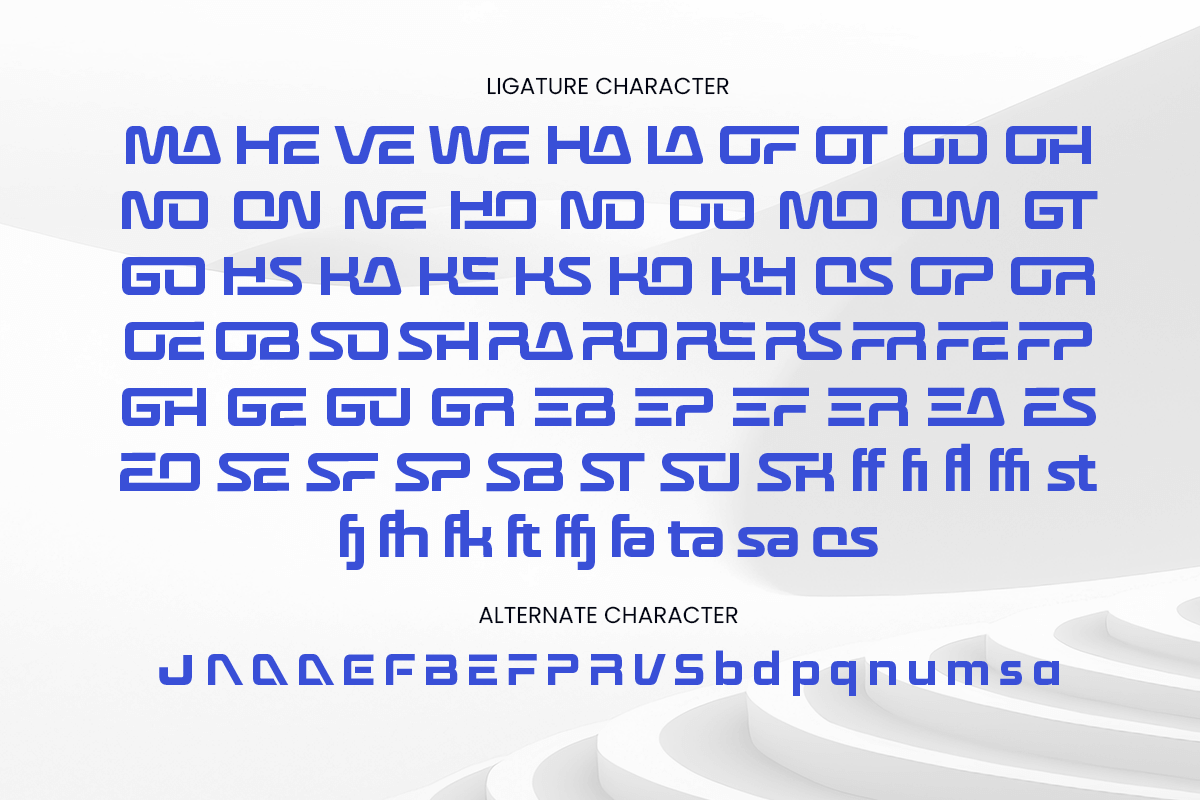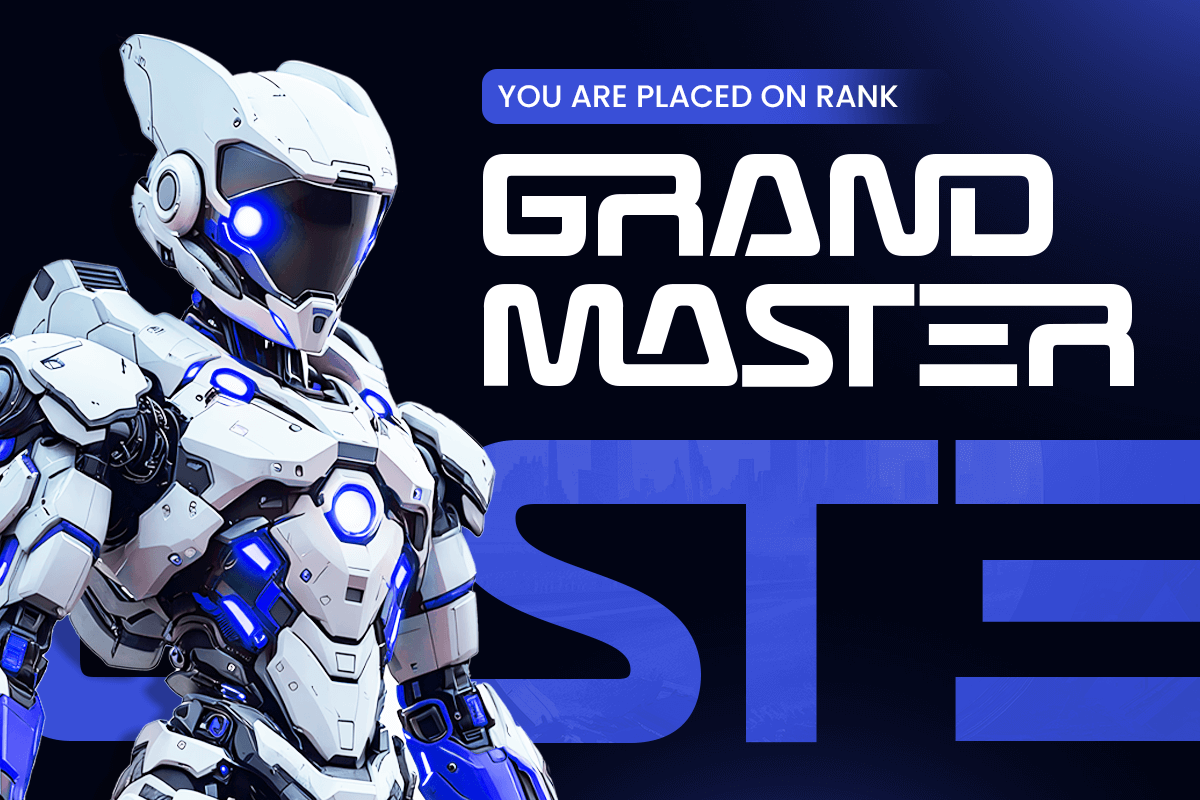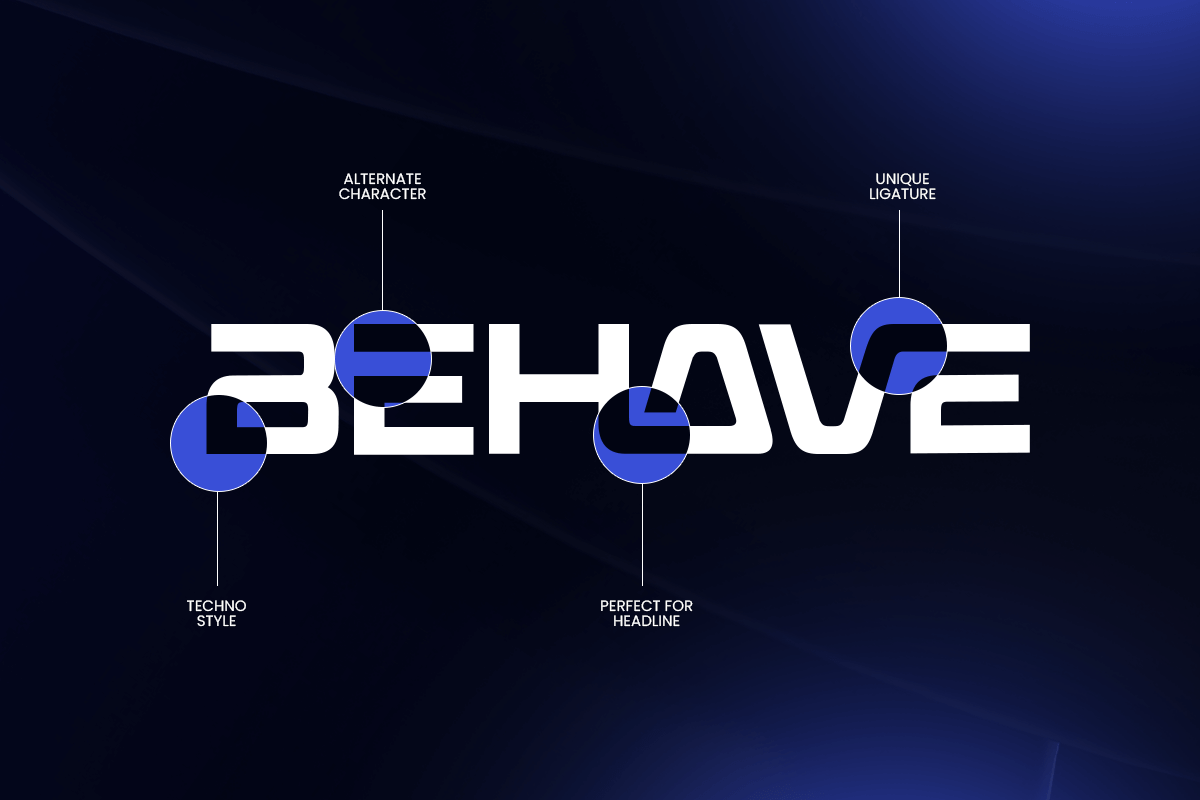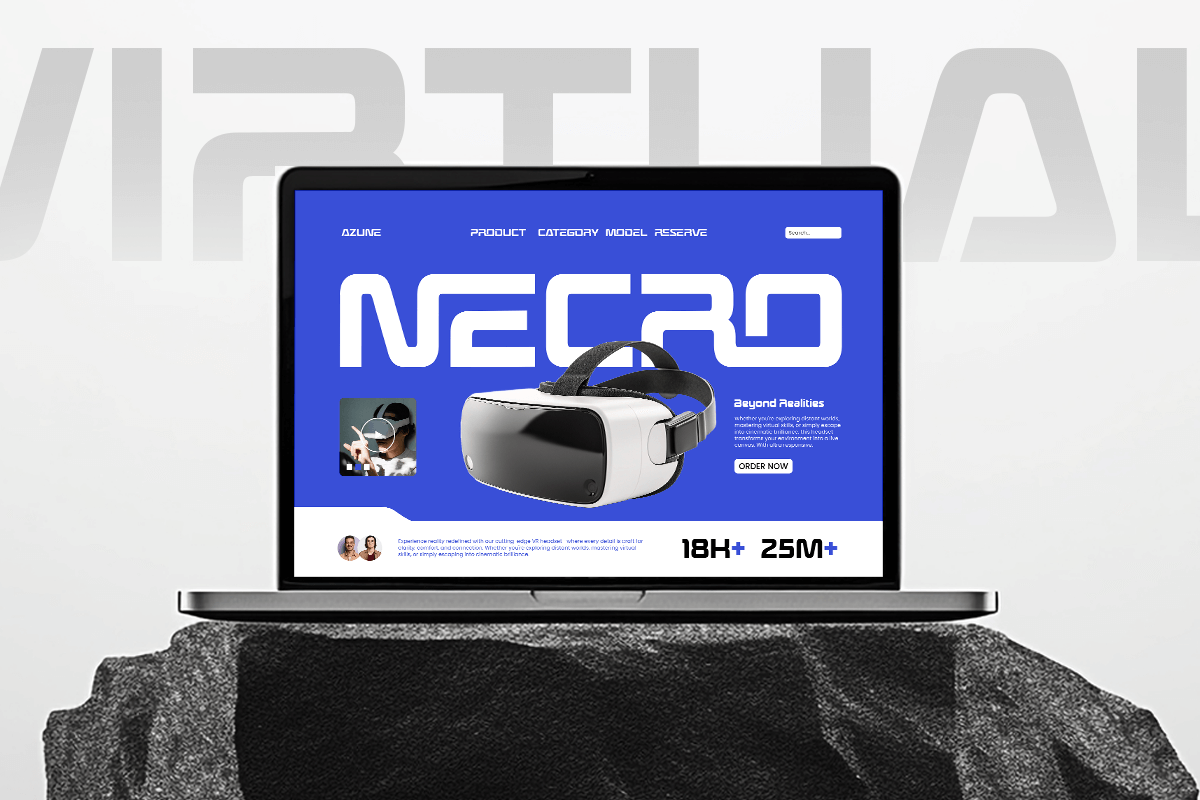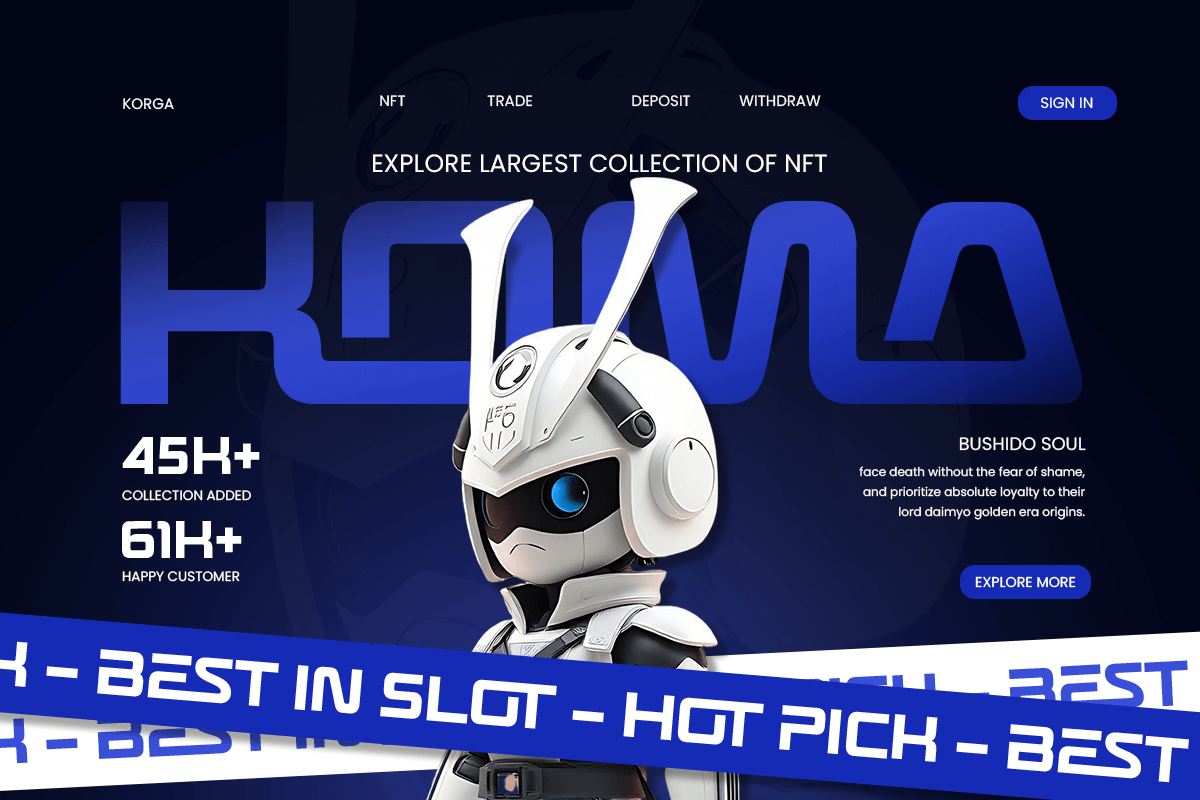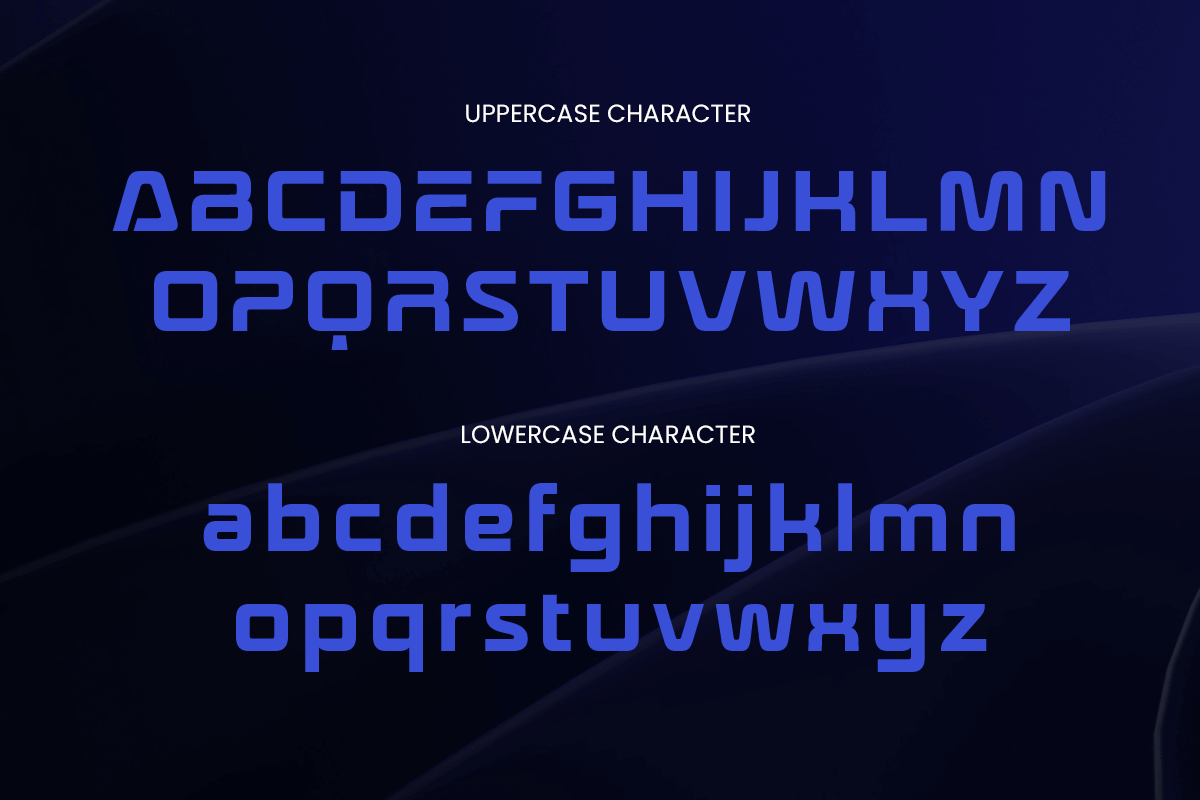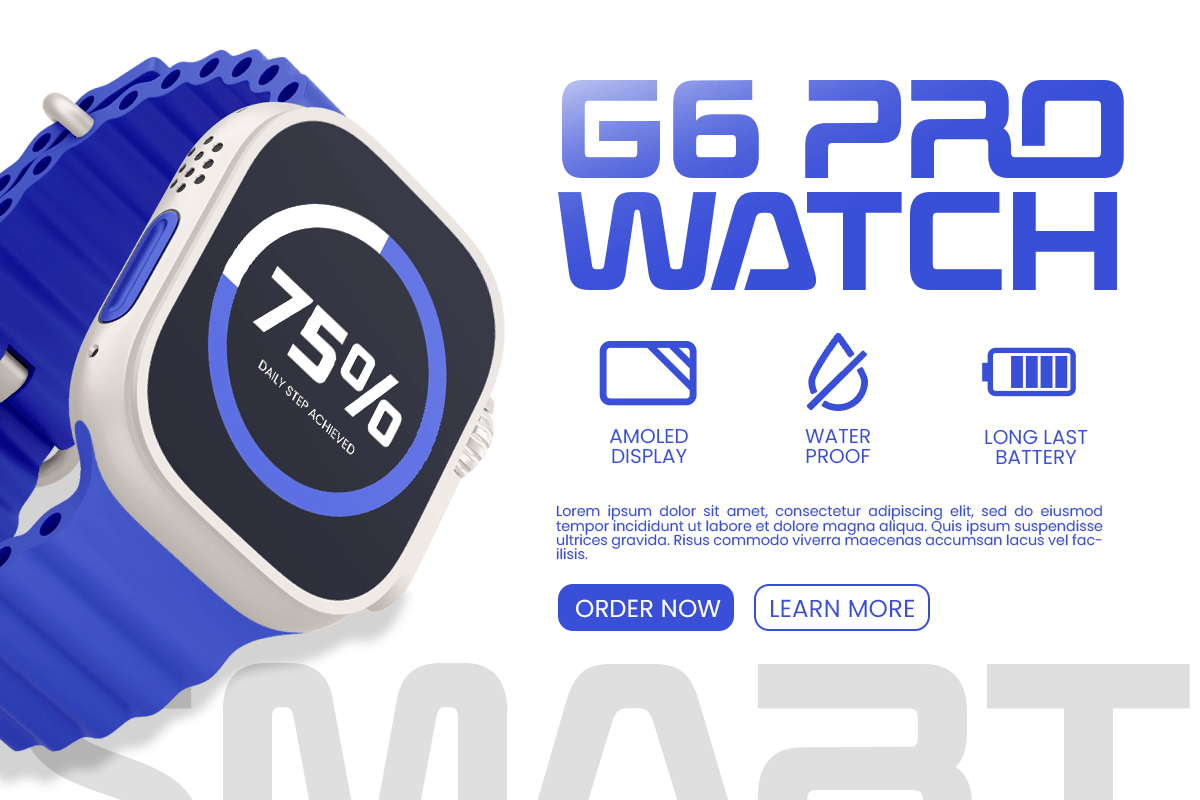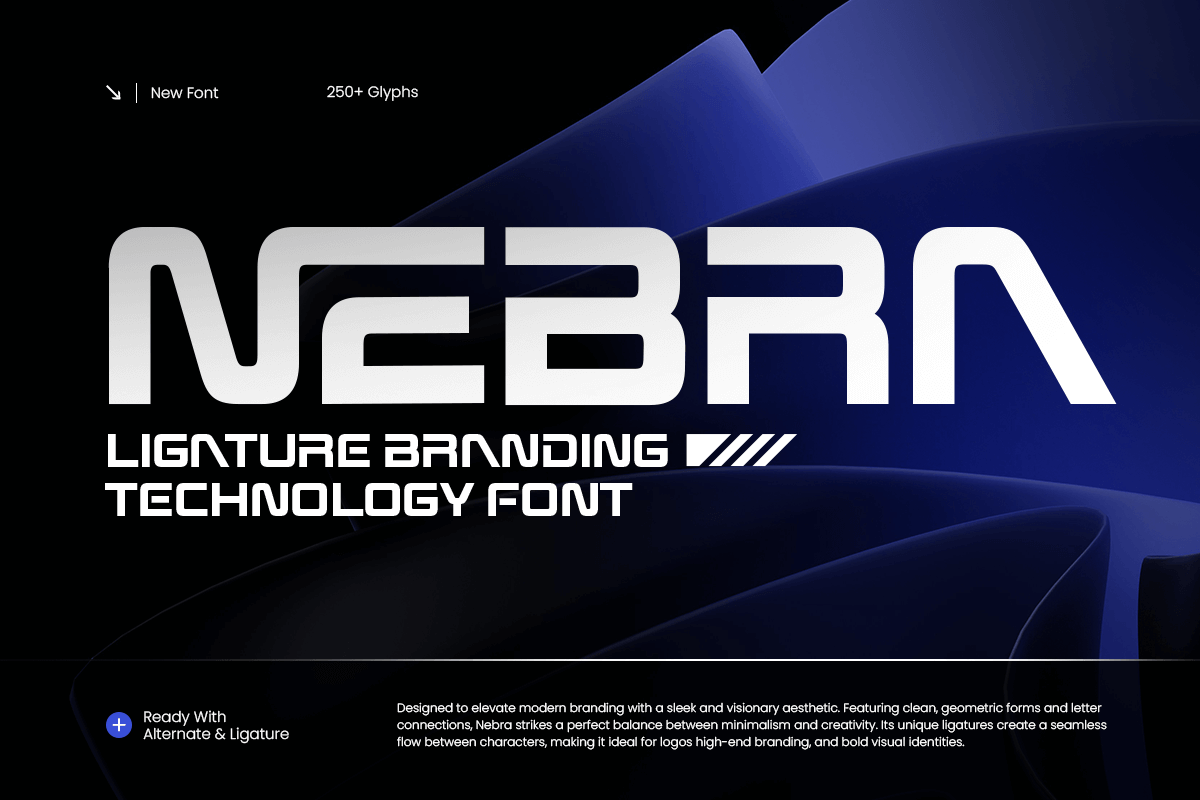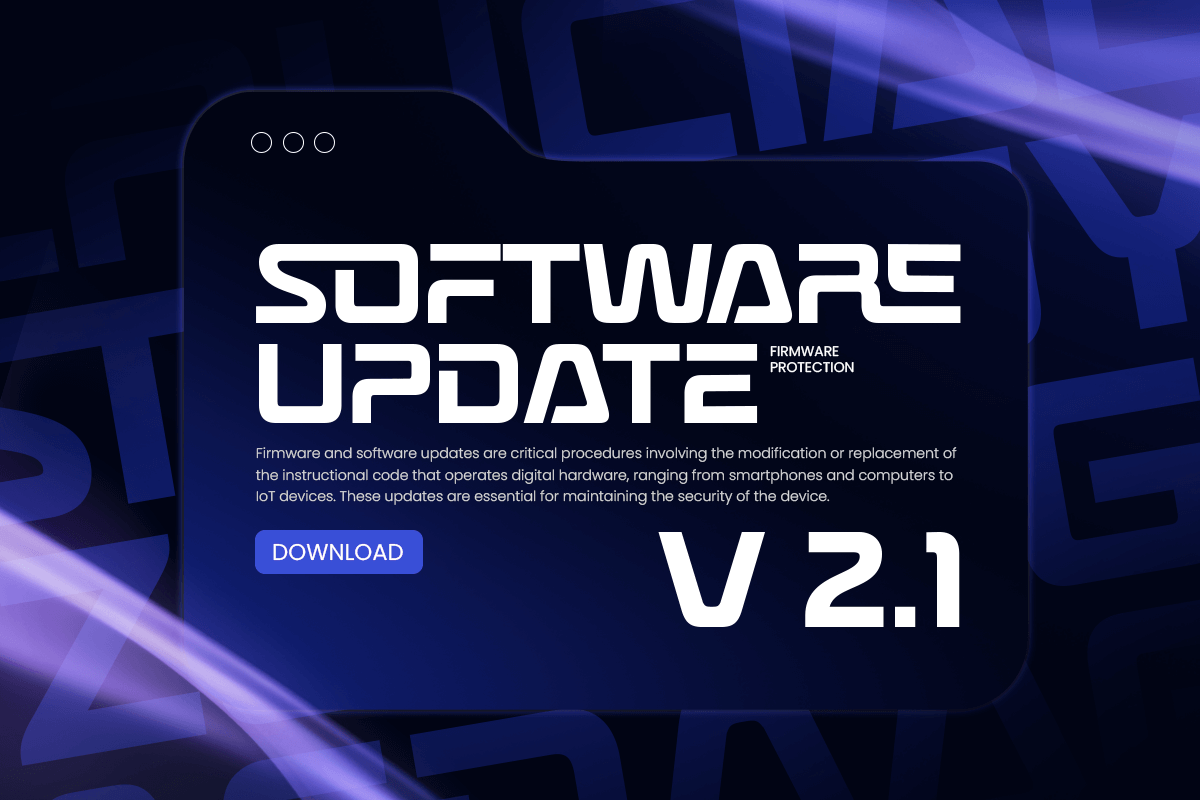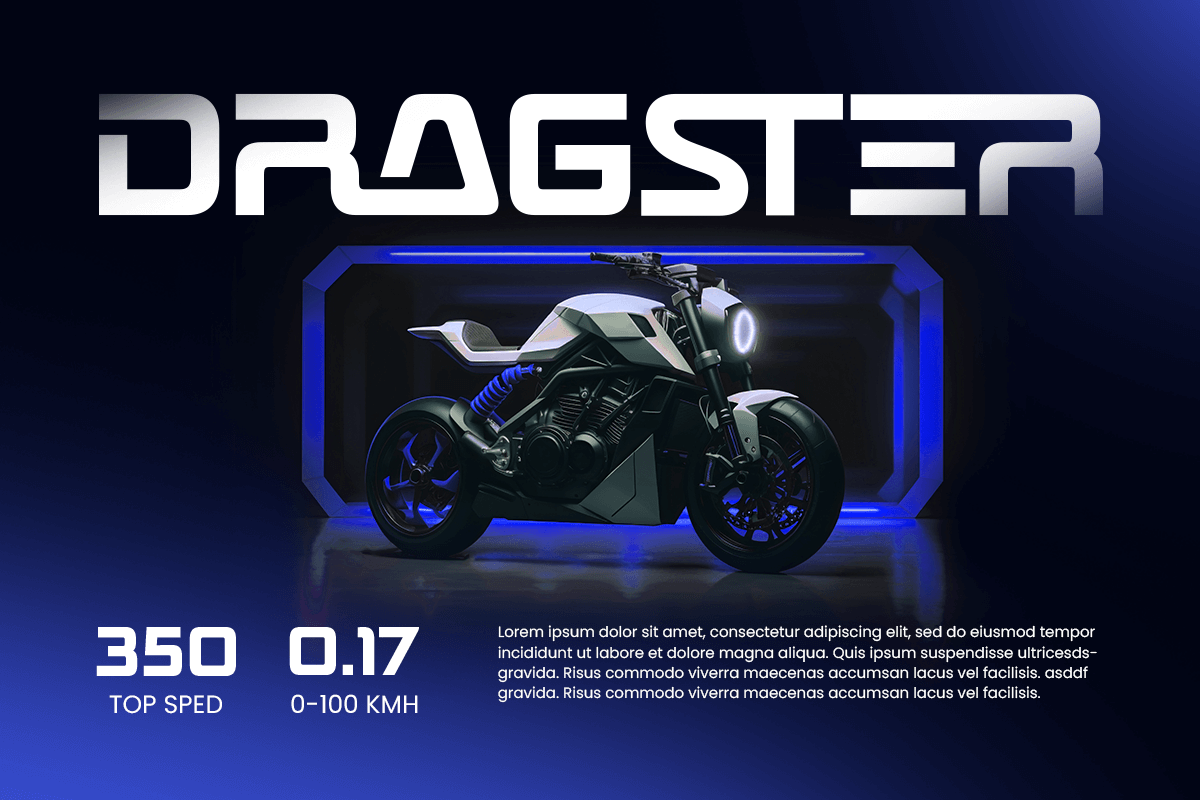
Nebra - Branding Technology Font
Nebra – Ligature Branding Technology Font
Nebra is a modern technology font crafted with clean geometry and stylish ligatures to create a strong, innovative branding presence. Designed for tech-driven identities, Nebra delivers a futuristic yet professional look ideal for logos, startups, digital products, UI/UX design, and modern corporate branding.
With its smooth ligature connections and balanced letterforms, Nebra enhances readability while adding a distinctive technological character. This font is perfect for software companies, AI projects, fintech brands, creative studios, and any modern business seeking a sleek and forward-thinking visual identity.
Nebra – Ligature Branding Technology Font Features:
* Modern technology style with clean custom ligatures
* Ideal for logos, branding, UI/UX, and digital products
* Uppercase, lowercase, numerals, and punctuation included
* Minimalist geometry with professional spacing
* Perfect for innovative, modern, and tech-focused designs
Define your modern brand with Nebra – the ligature technology font built for clarity, innovation, and digital excellence.